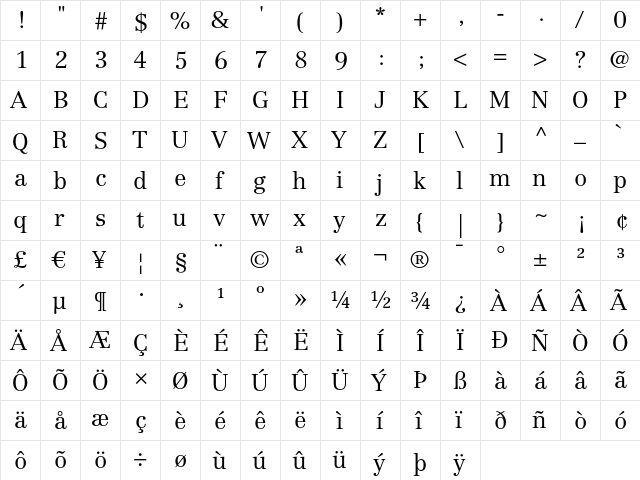
Linotype Centennial LT 45 Light
Design Context for Linotype Centennial LT Typeface
Linotype Centennial LT offers clean, dependable letterforms without strong stylistic allegiance, making it a practical choice for designers who need flexibility. The delicate stroke weight brings airiness and refinement to layouts.